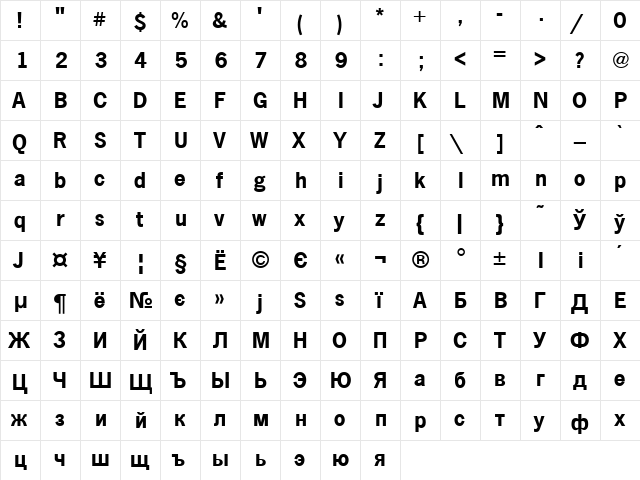
NewsPaperCTT Bold
Design Context for NewsPaperCTT Typeface
NewsPaperCTT is a composed and adaptable typeface that performs quietly and consistently across a wide range of design contexts. The heavy weight commands attention and anchors typographic hierarchies.